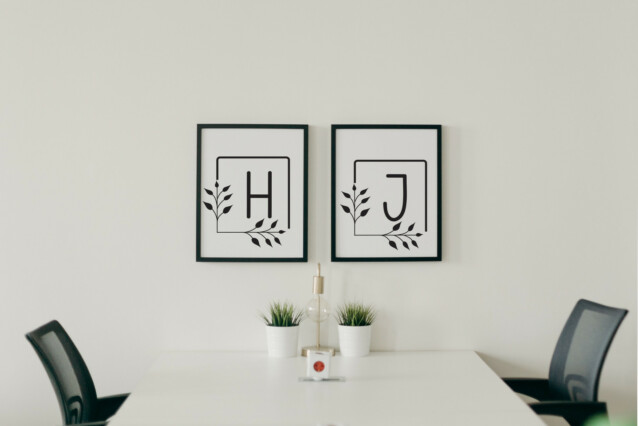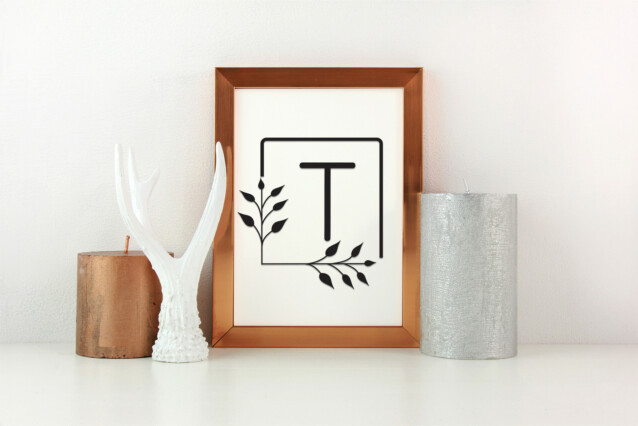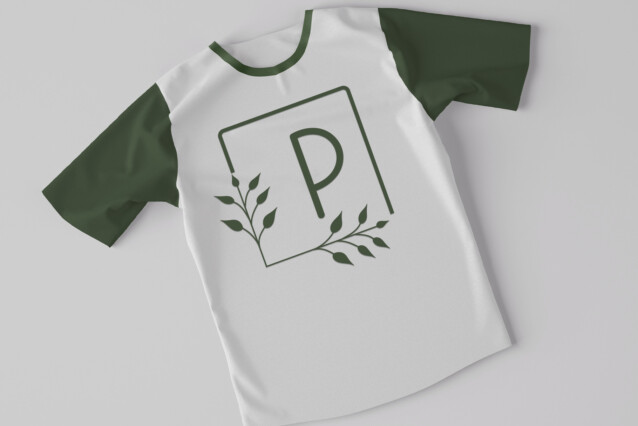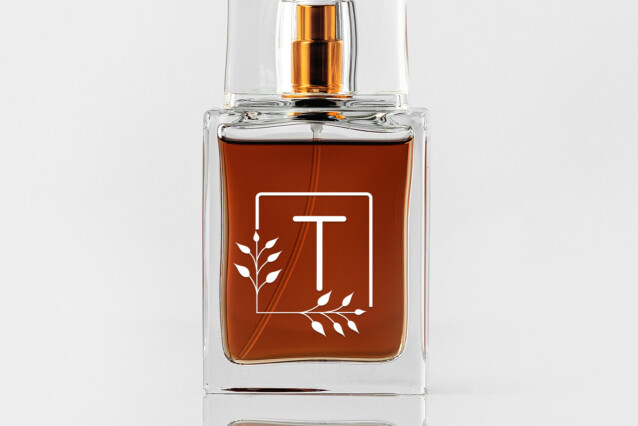
Frame Monogram Font
Frame Monogram Font is an organic and beautiful decorative font, featuring lovely ornaments. No matter the topic, this font will be an incredible asset to your fonts’ library, as it has the potential to elevate any creation.